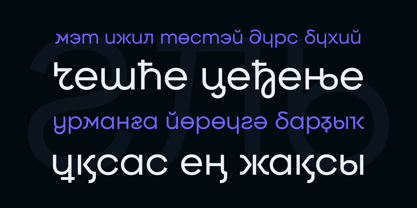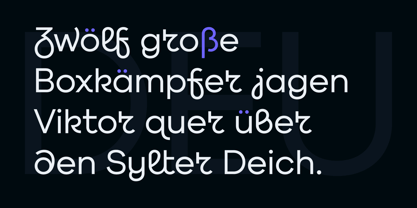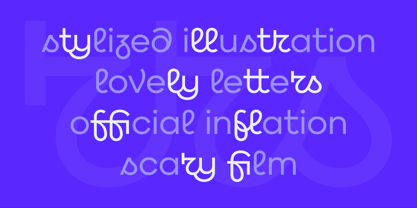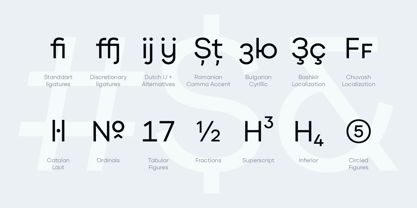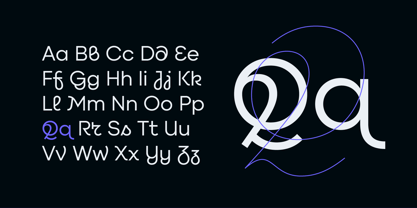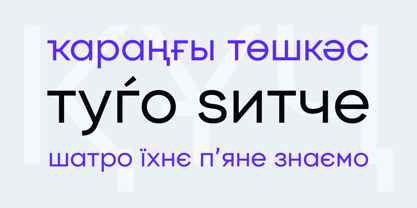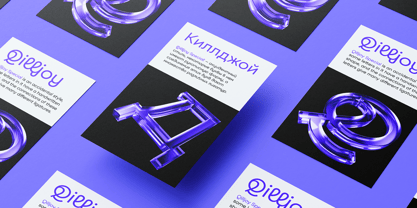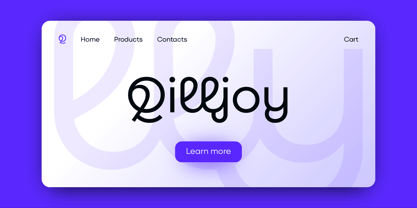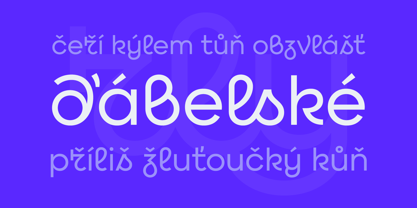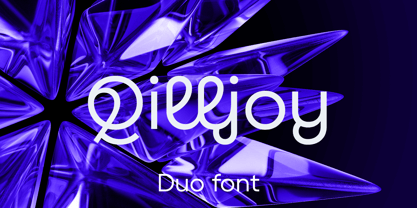
Qilljoy
by Slava Antipov
The Qilljoy Font Family was designed by Slava Antipov and published by Slava Antipov. Qilljoy contains 4 styles and family package options. More about this family
Qilljoy is a font pair consisting of a Normal and Special style. Qilljoy Normal is a strict geometric grotesque, it is versatile, readable, and suitable for large amounts of text. Qilljoy Special is an accidental style, some letters in it have a handwritten shape, and the connections of these letters give many different ligatures. Qilljoy font has a unique inimitable design that attracts attention and adds originality to the project.
The font would work well for logos, headlines, posters, presentations, merchandise, social media and more.
Qilljoy supports Latin and Cyrillic, has various OpenType features such as ligatures, alternate glyphs, fractional numbers and others.